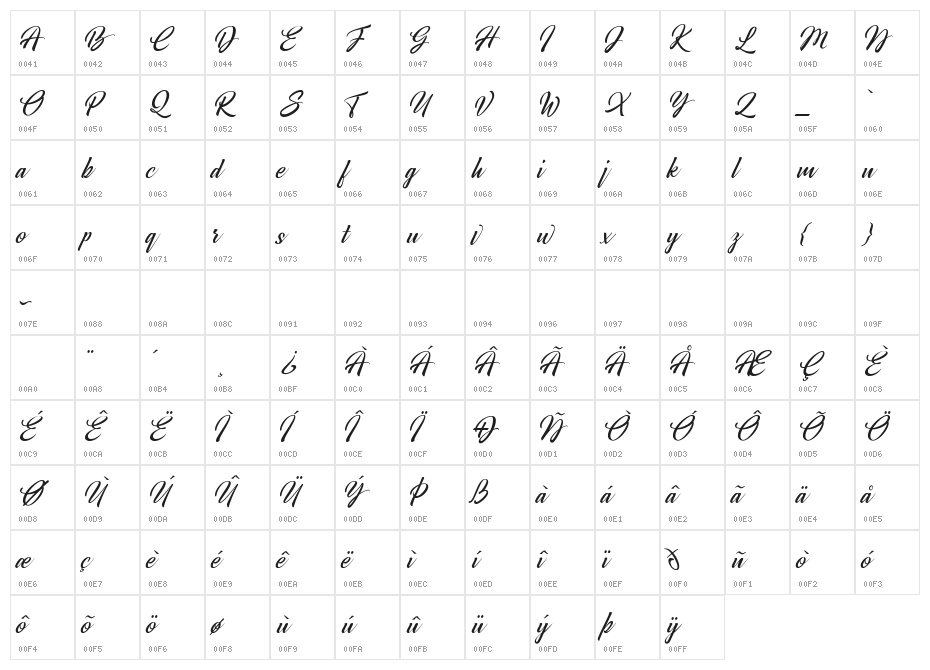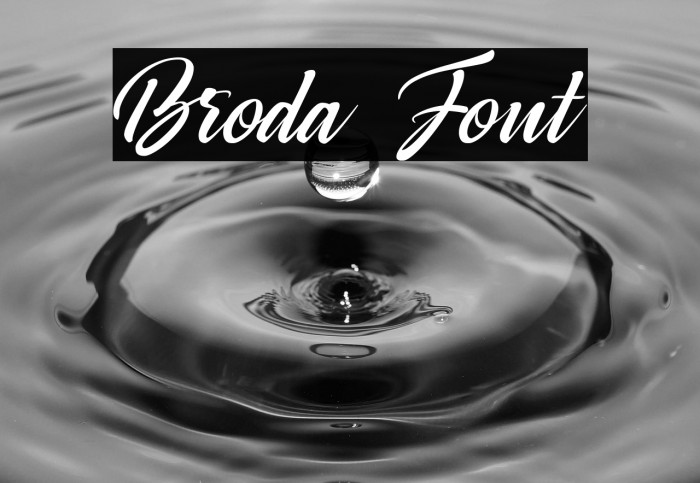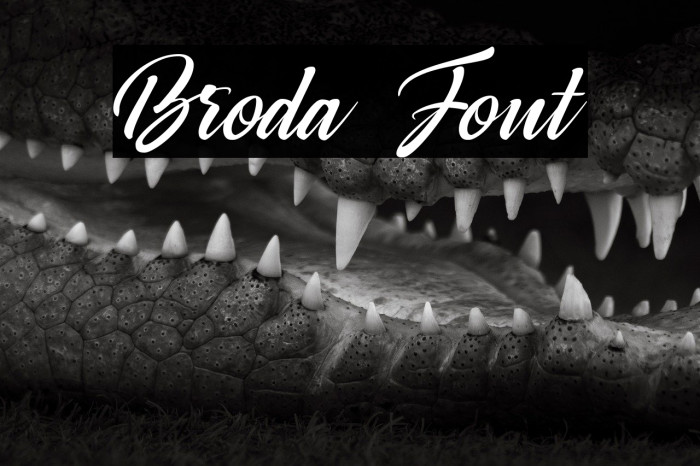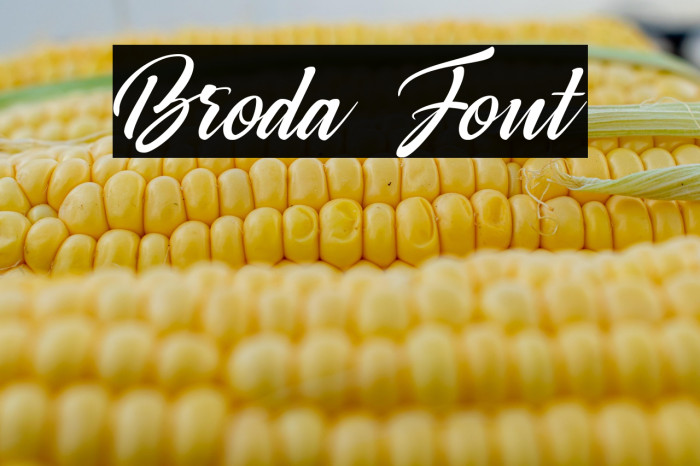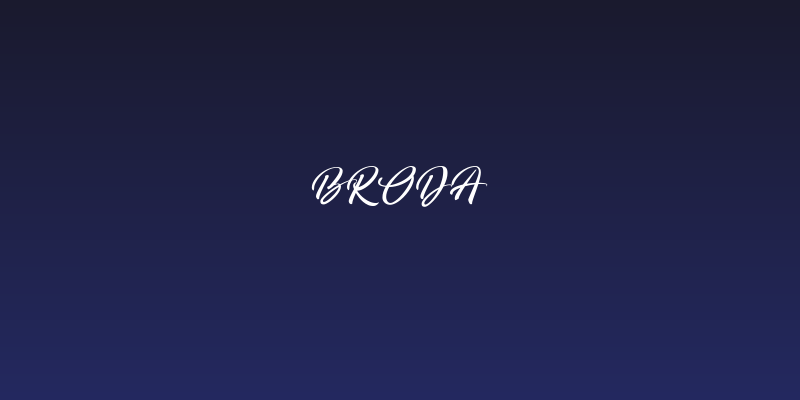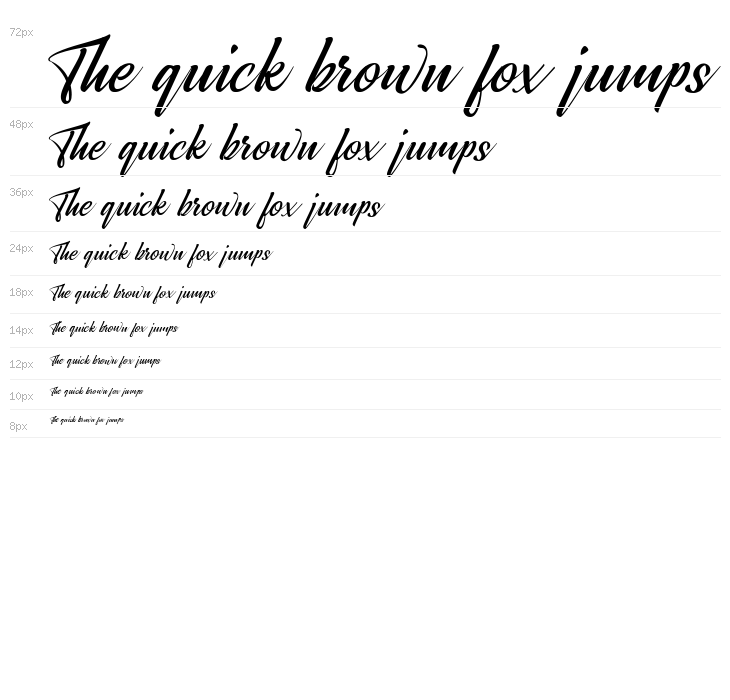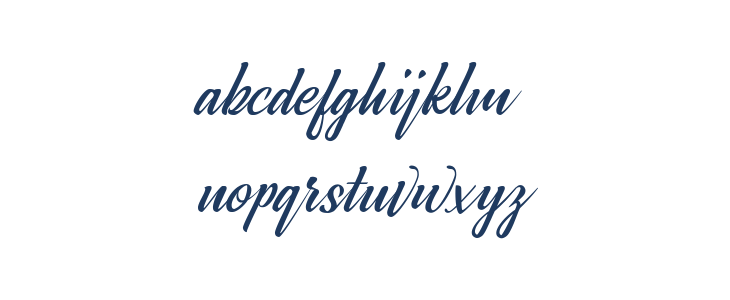
Broda Font
Broda Description
This elegant script font features flowing, cursive letters that exude a sense of sophistication and grace. The characters are interconnected with smooth, sweeping strokes, creating a harmonious and fluid appearance. The uppercase letters are ornate and slightly larger, while the lowercase letters maintain a consistent flow, enhancing readability. The font's design is reminiscent of traditional calligraphy, with a modern twist that makes it suitable for various contemporary applications. Its artistic flair and stylish curves make it ideal for projects that require a touch of elegance and class.
Overall StyleElegant
Use CaseLogos, Invitations, Decorative text
Proposed ProjectsWedding invitations, luxury branding, elegant stationery, personal signatures, and decorative quotes.